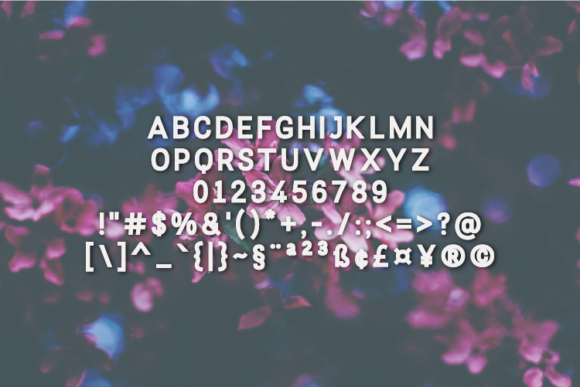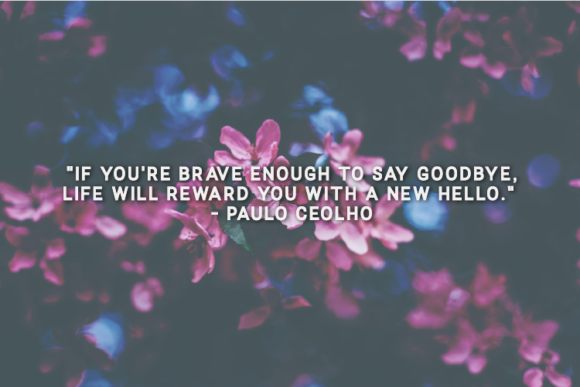
Introduction to Brodyst Font
Have you ever stared at a blank canvas, waiting for the perfect font to bring your creative project to life? For designers, finding the right font can be a game-changer. It’s that moment when everything falls into place, and your design starts to shine. And that’s exactly what the Brodyst Font offers – a clean, slim, and simple sans serif font that elevates any design to the next level.
As a valuable design resource, the Brodyst Font is perfect for product packaging, branding projects, magazine covers, social media, weddings, and more. Its high-quality design makes it stand out from the crowd, and its versatility allows it to seamlessly integrate with any background – even a transparent one. With the Brodyst Font, you can express your creativity without any limitations, making it an essential tool for any designer.
Key Features of Brodyst Font
- High-quality design resource ideal for creative projects, offering a unique aesthetic.
- Features a transparent background, allowing for seamless integration into designs and minimizing visual clutter.
- Designed with a focus on legibility, ensuring that the font is easy to read in a range of contexts.
- Resolution-independent, allowing for crisp and clear display across different devices and screens.
Honest Review: Brodyst Font
As a designer, I’m always on the lookout for high-quality design resources to enhance my creative projects. Recently, I stumbled upon the Brodyst Font, and I’m excited to share my honest review with you.
- The Brodyst Font offers a unique and modern design style that can add a touch of elegance to any project.
- The font is highly customizable, allowing designers to adjust the size, color, and style to fit their specific needs.
- The font may not be suitable for all types of projects, particularly those that require a more conservative or traditional design style.
- The font’s transparency background feature can be a bit tricky to work with, especially for designers who are new to working with transparent backgrounds.
Overall, I’m impressed with the Brodyst Font’s quality and versatility. While it may have some limitations, it’s an excellent addition to any designer’s toolkit. If you’re looking for a modern and elegant font to enhance your creative projects, the Brodyst Font is definitely worth checking out.
Tips for Getting the Most Out of Brodyst Font
For optimal results, use the Brodyst Font on a transparent background to create a seamless design. Experiment with different font sizes and styles to achieve the desired look. You can also pair the Brodyst Font with other high-quality design resources to create a unique and eye-catching design.
The Brodyst Font is perfect for a variety of creative projects, including logos, business cards, brochures, and social media graphics. Its high-quality design and transparent background make it an ideal choice for any design project that requires a professional and sophisticated look.